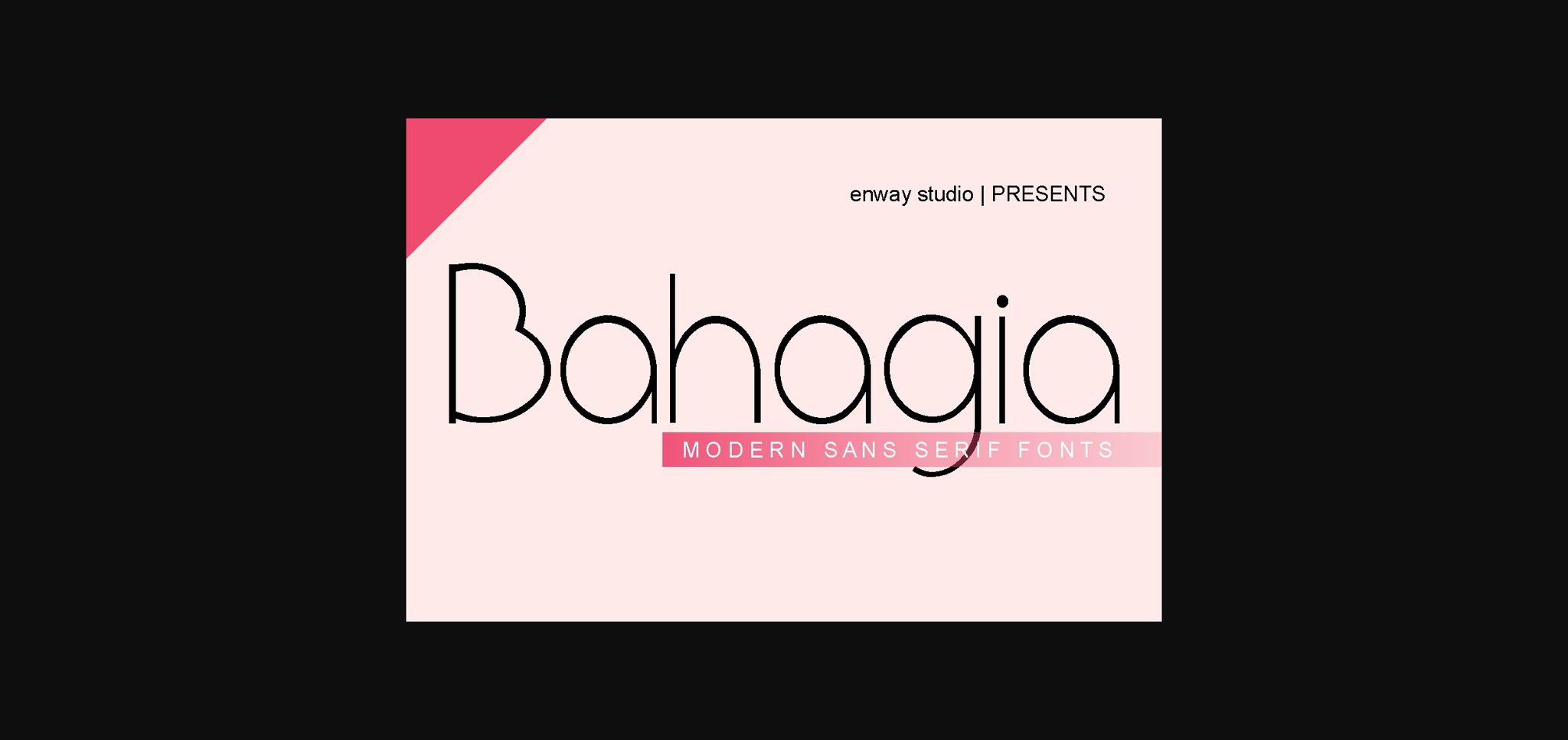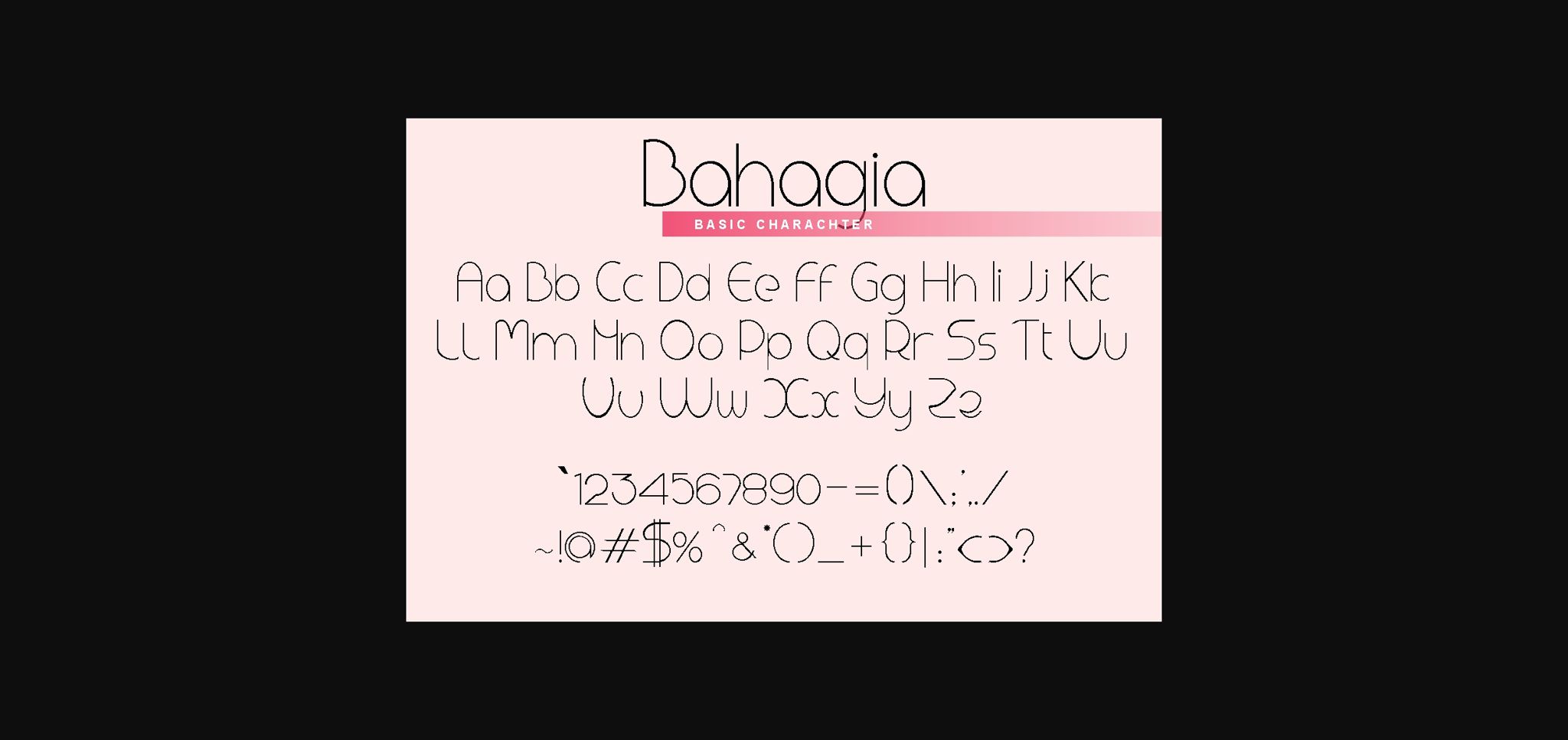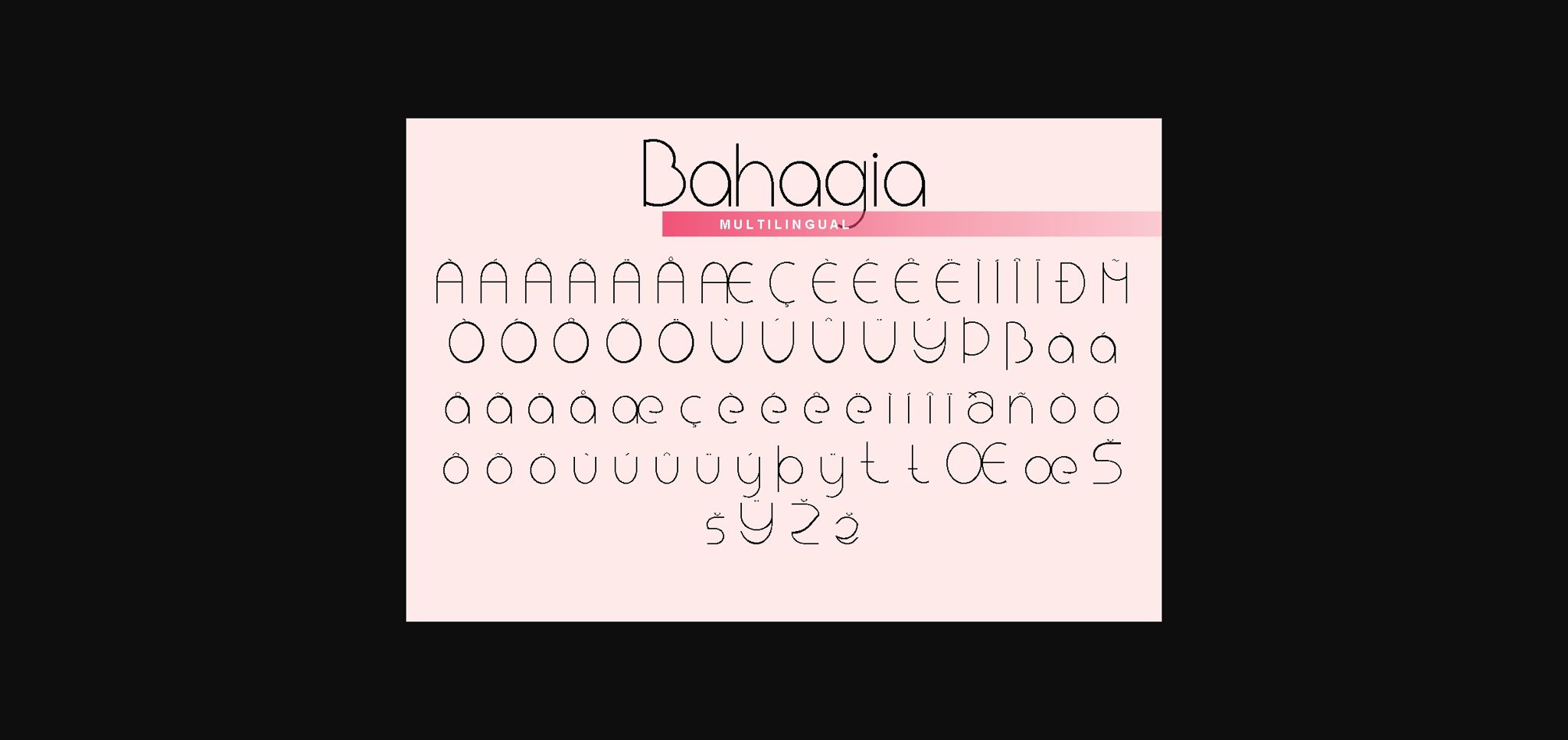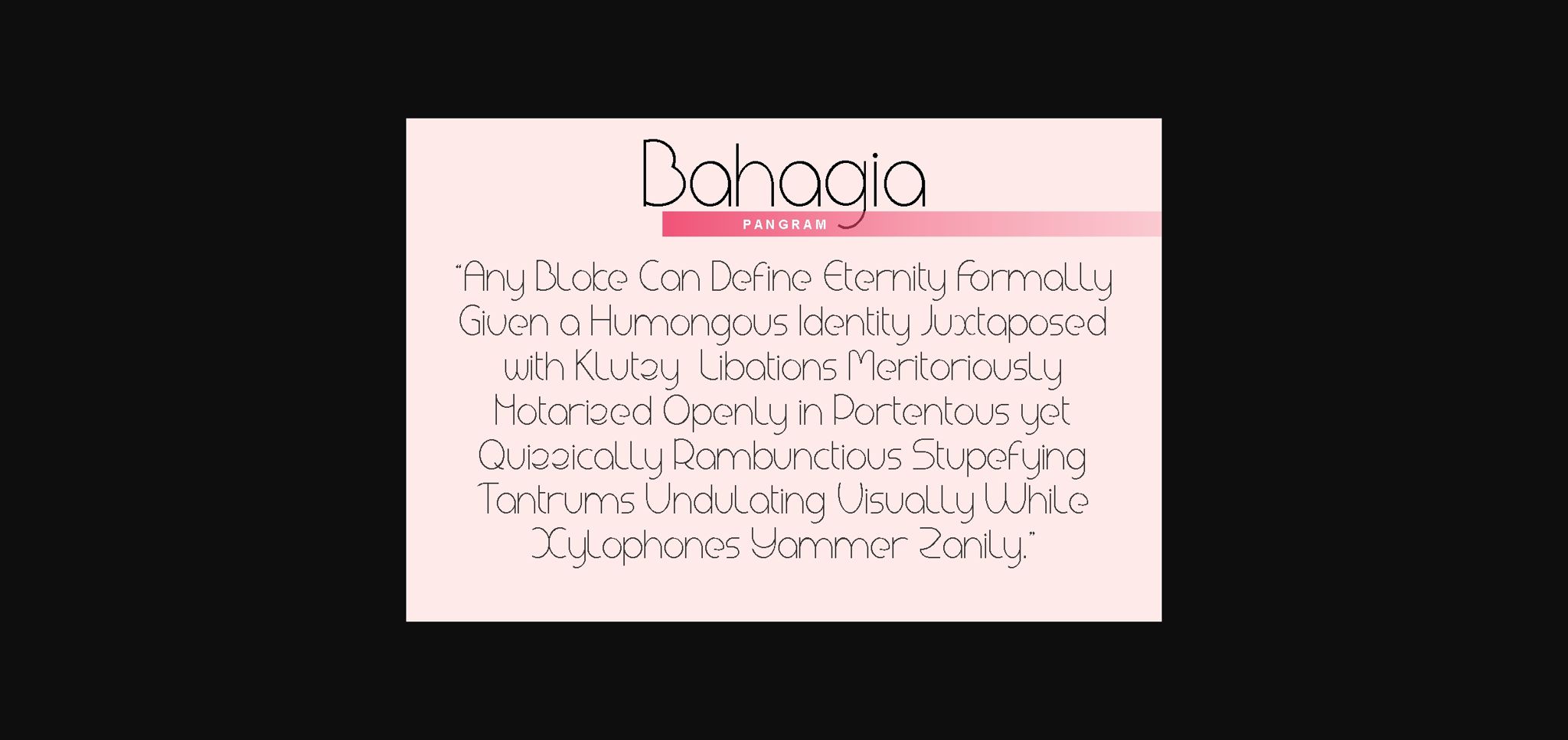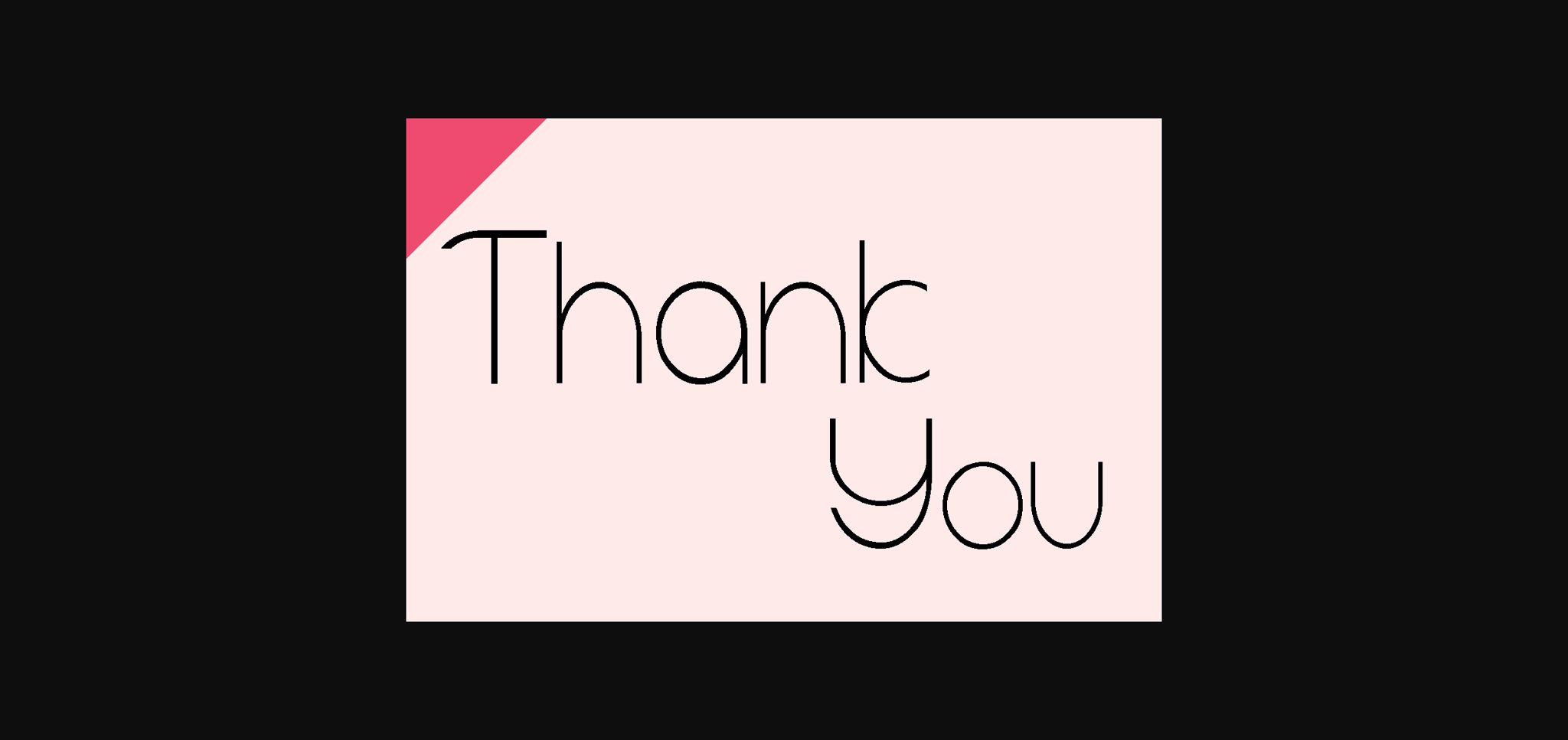
HomeSans Serif FontsBahagia Font Sans Serif Fonts Bahagia Font FacebookXPinterestWhatsApp 1 of 7 ... Bahagia Font Poster 2... Bahagia Font Poster 3... Bahagia Font Poster 4... Bahagia Font Poster 5... Bahagia Font Poster 6... Bahagia Font Poster 7... About Bahagia Font Bahagia Sans Serif Fonts is an elegant and futuristic sans serif font with a light feel. Use it to add a modern touch to any design project! DOWNLOAD NOW People also explored Black Coffee Font Blueline™ Font Poshtion Font Nuerthon Thin Font Nottingham Script Font Sideline Font Italo Font Digimom Font Sweet Buttermilk Duo Font 265 0 TagsBahagiaBahagia Font Previous articleProfessional Edition FontNext articleMostery Font LEAVE A REPLY Cancel reply Comment: Please enter your comment! Name:* Please enter your name here Email:* You have entered an incorrect email address! Please enter your email address here Website: Save my name, email, and website in this browser for the next time I comment. Personal Use Free Love Heart Personal Use Free Read more about this font Sheiloria Personal Use Free Read more about this font My Shine Personal Use Free Read more about this font Cuttering Personal Use Free Read more about this font BLOG 5 Fonts That Will Dominate Design Trends in 2026 5 Fonts for 2026 That Will Dominate Design Trends Typography plays a critical role in visual communication, and as we look ahead to 2026, it’s... Best Fonts for T-Shirt Design – Top 2025 Picks Free Fonts Risk: Why Free Fonts Can Be Dangerous for Designers How to Cut Any Font on Cricut: Convert a Font to SVG (Free)